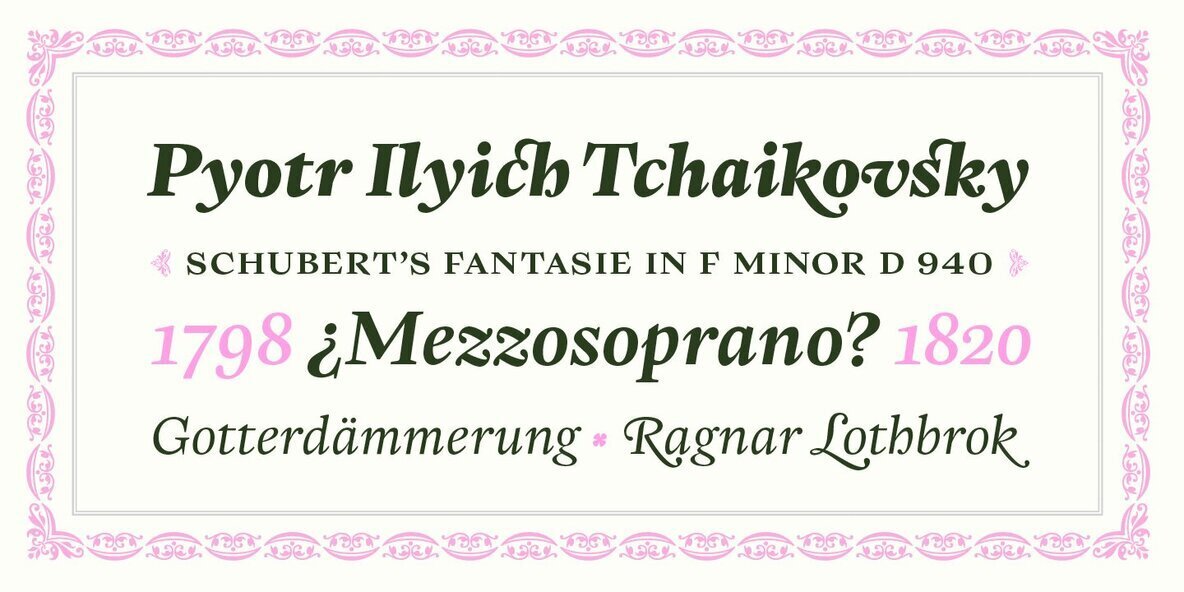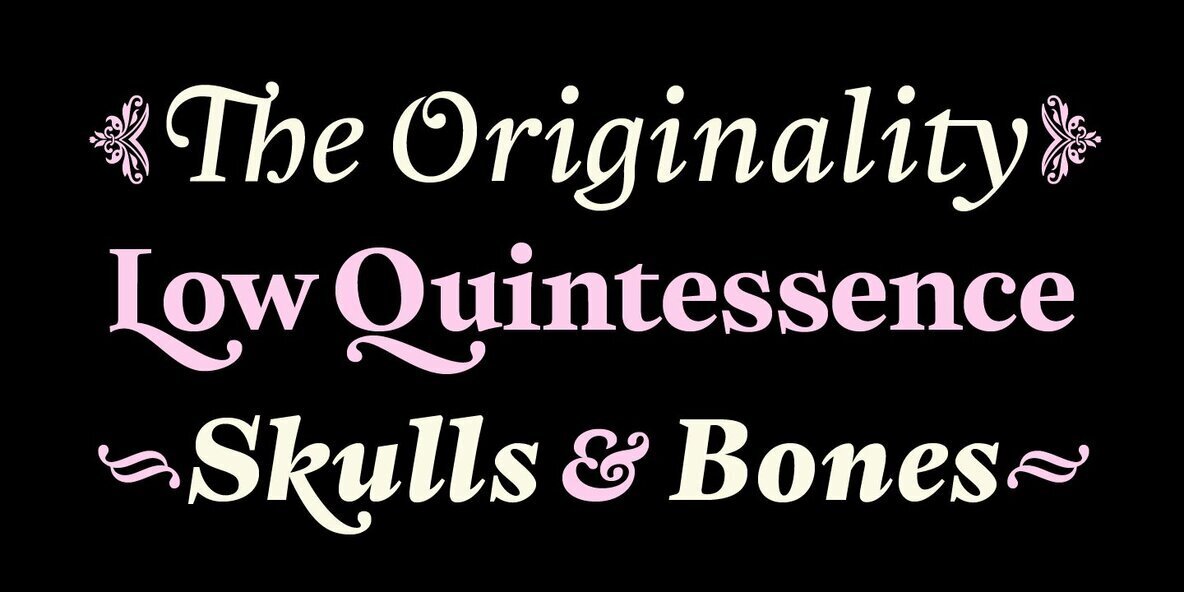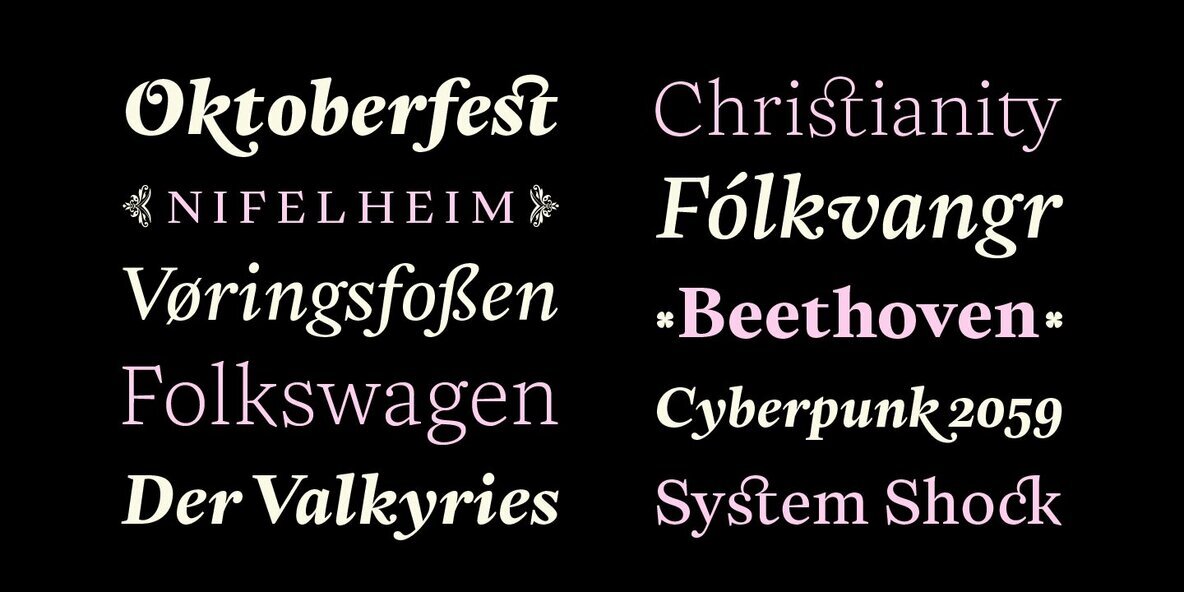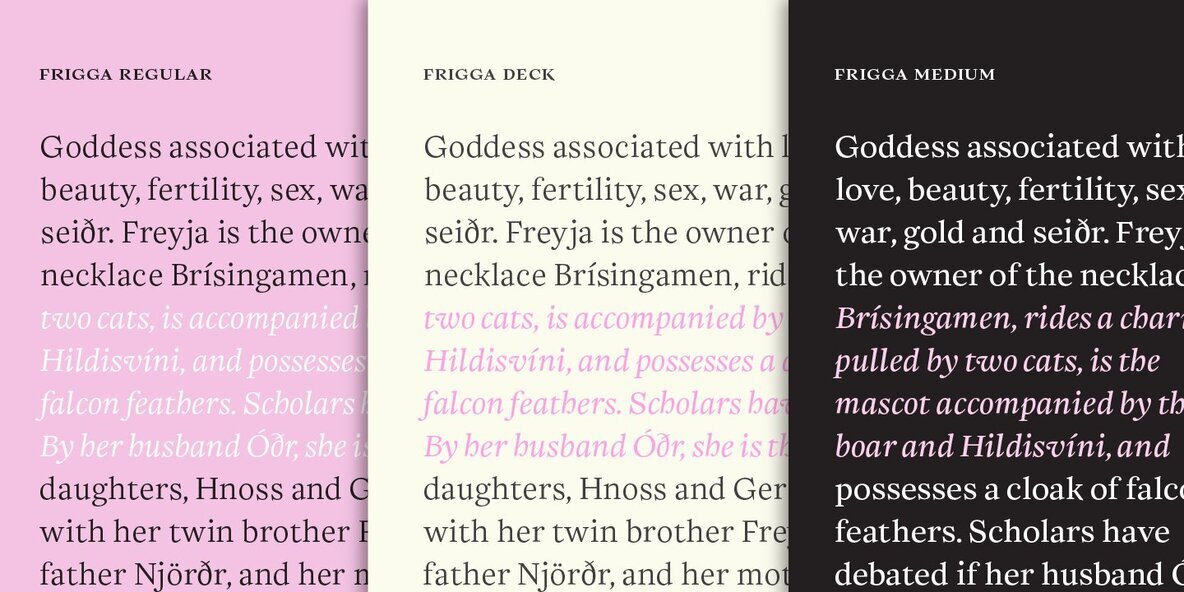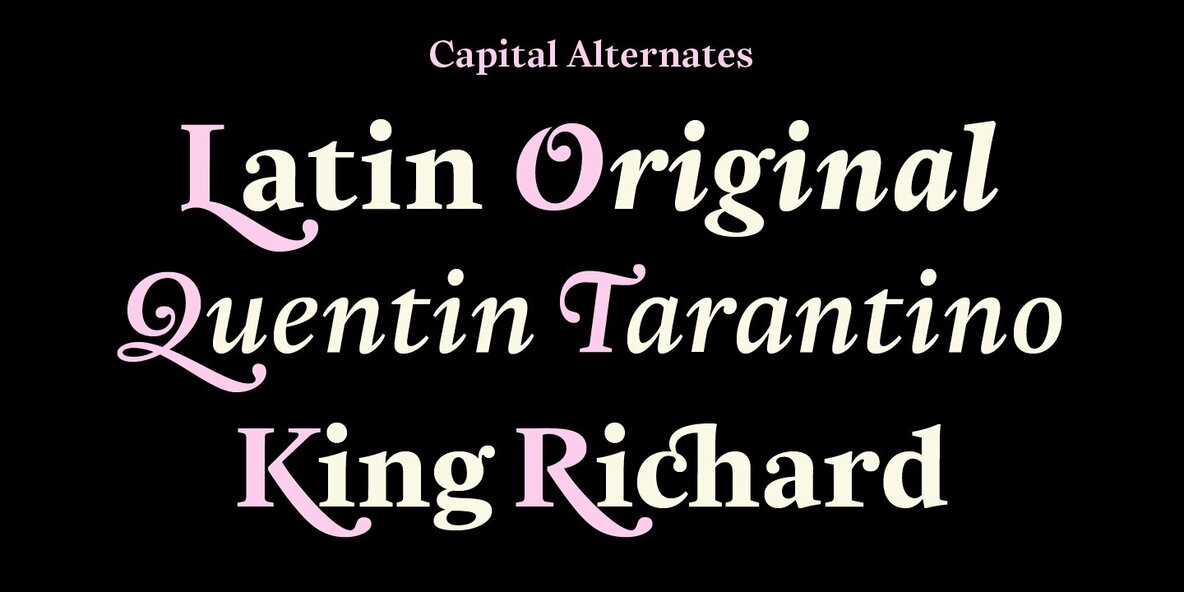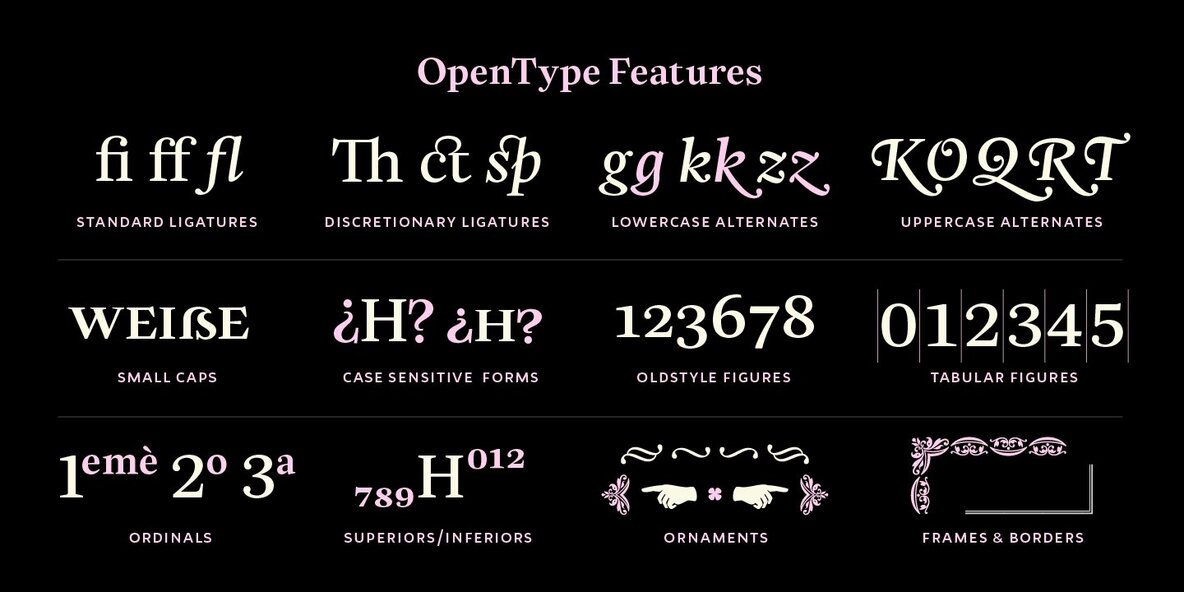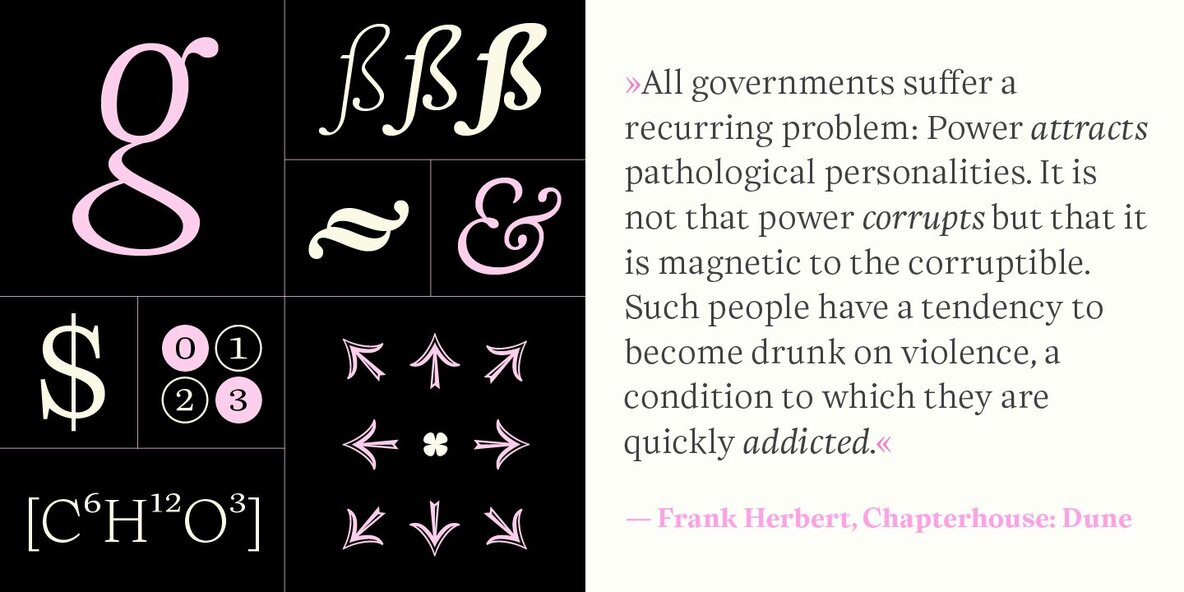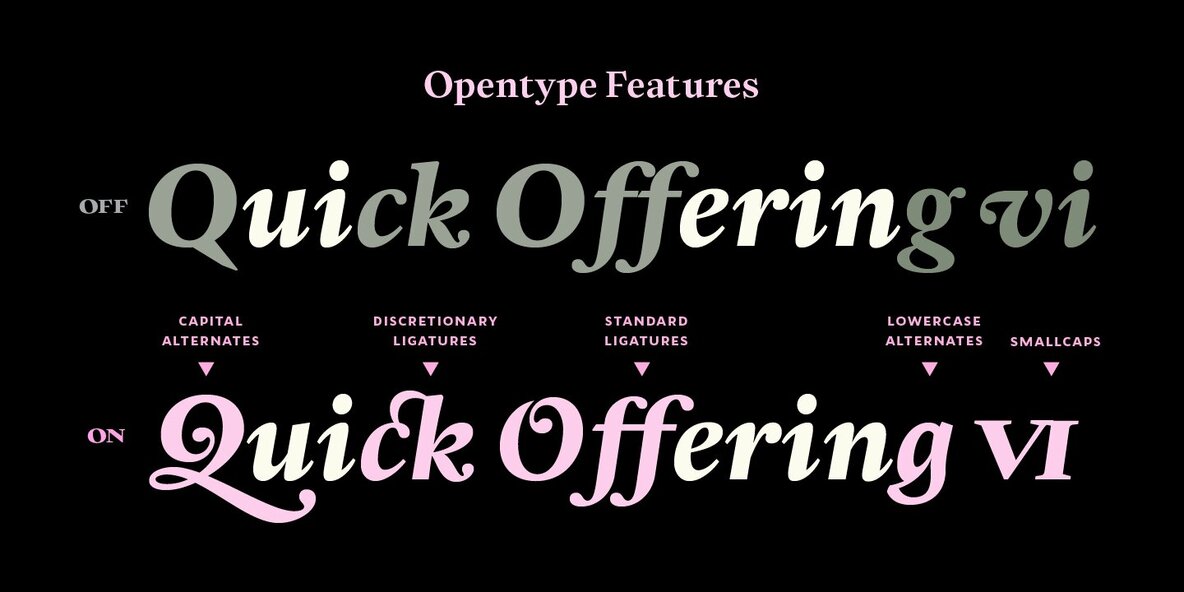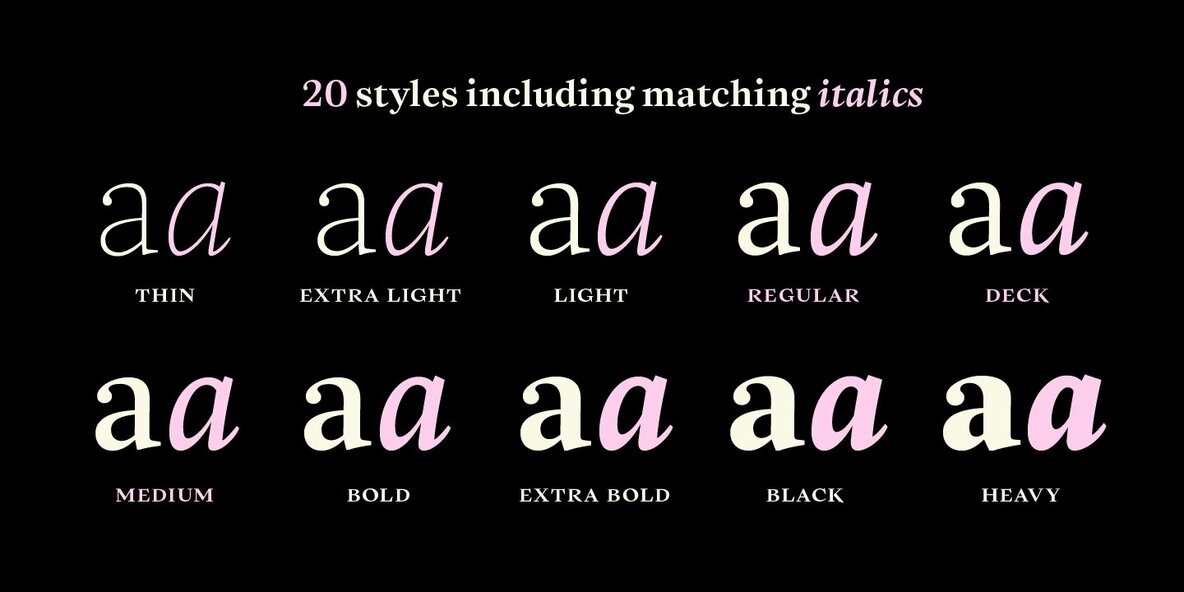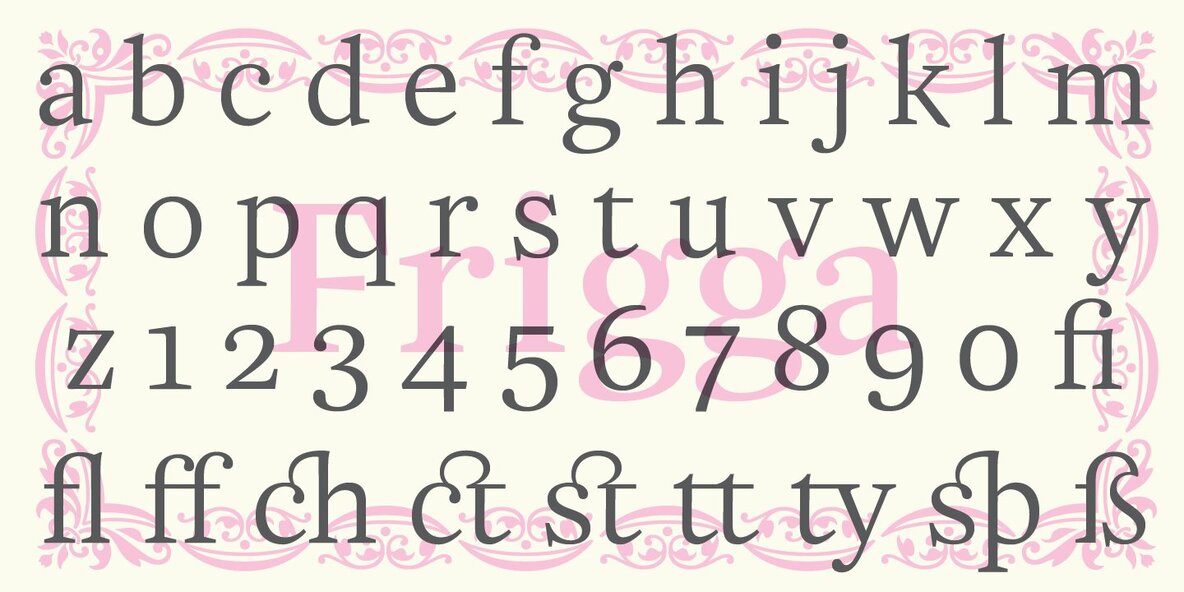
Frigga Font
Frigga is a typeface that settles its roots in the Baroque Dutch tradition of text typefaces and northern european type forms. Carefully crafted for an optimum balance between its solid historic structure and a refreshing repertoire of organic forms, where blossoms its contemporary spirit and natural beauty.
In the page, spread on long text settings a feeling of comfort and closeness, while in headlines and display use, it reveals itself more exuberant and plentiful of details. Is beautiful, timeless, lush, elegant and smooth like nordic mead.
Fully equipped to realize your wildest editorial dreams, Frigga came in 20 styles and variable format, with more than a 1000 glyphs per style, alternates, ornaments and borders, old style and tabular figures, small caps and plenty of OpenType features to fulfill any type of editorial need.
Named after the nordic goddess Frigga (also called Frejya), taking as a reference the romantic mythos of its cultural representation, the solemn presence and her warm, gentle embrace.